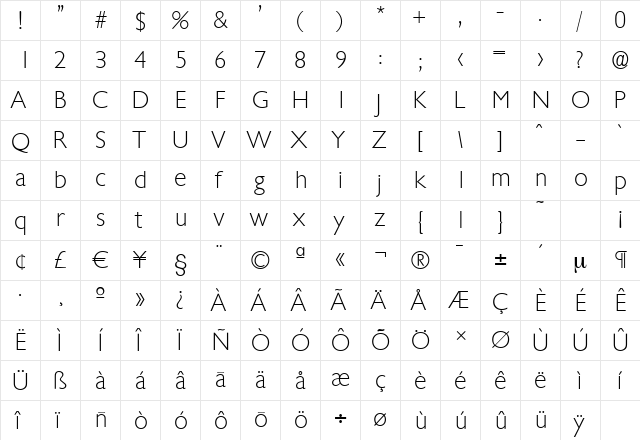
ChantillySerial-Xlight Regular
Design Context for ChantillySerial-Xlight Typeface
ChantillySerial-Xlight takes a measured approach to typography — its balanced proportions and neutral character make it a reliable workhorse for both digital and print work. The delicate stroke weight brings airiness and refinement to layouts.